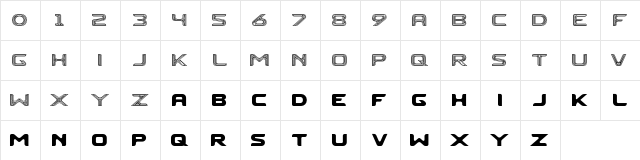
SwampDog Regular
| Foundry | Strash Graphic |
| Designer | Danny Strash |
Design Context for SwampDog Typeface
SwampDog is a composed and adaptable typeface that performs quietly and consistently across a wide range of design contexts.